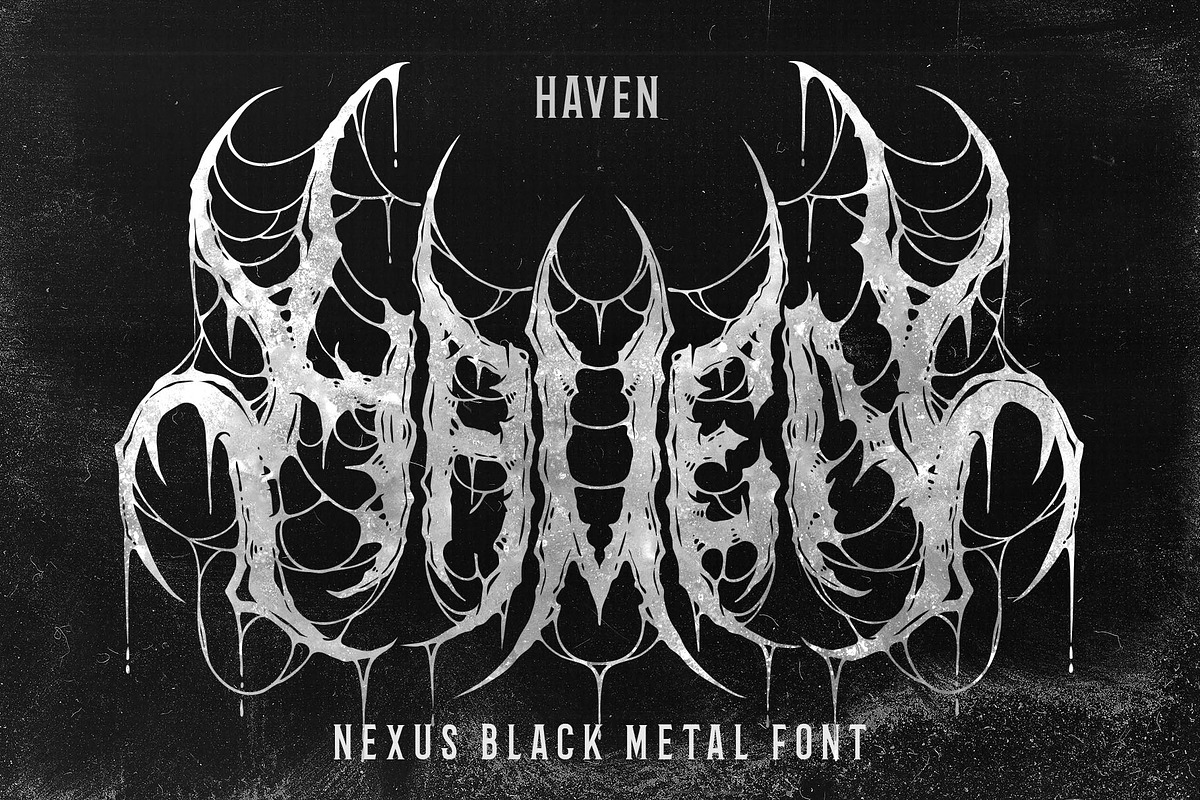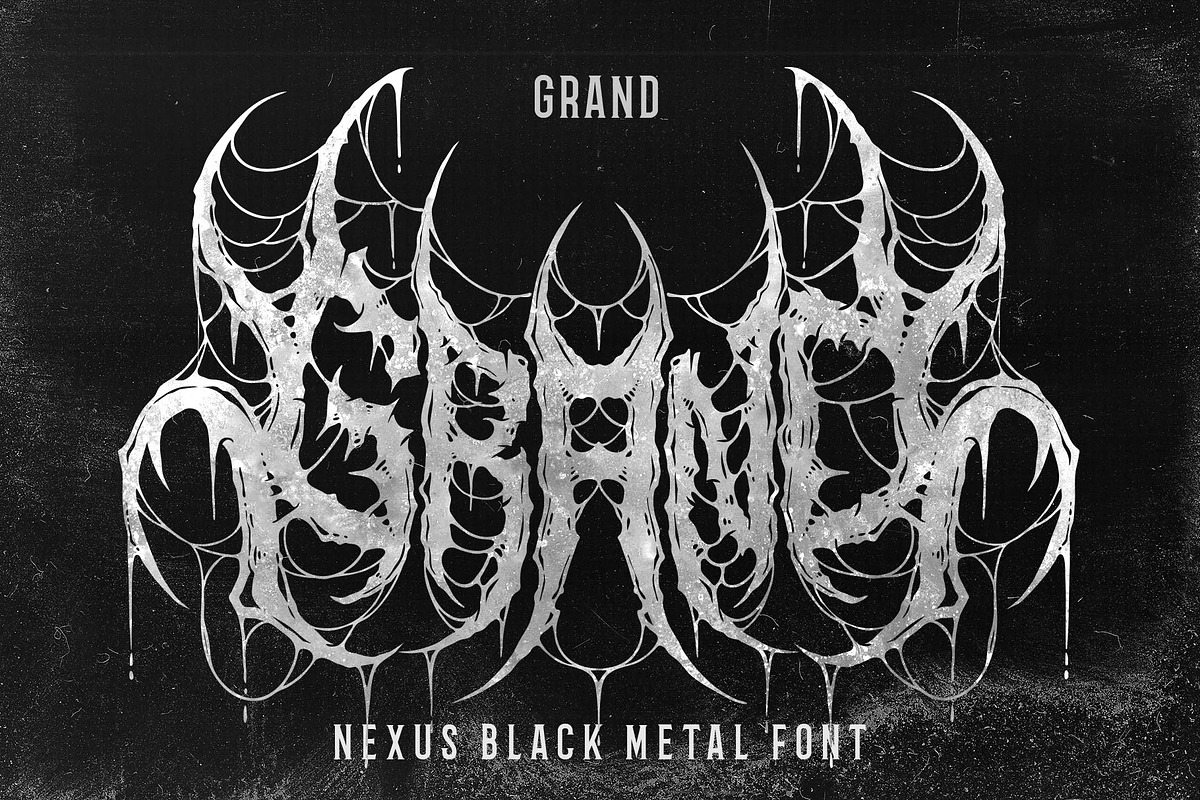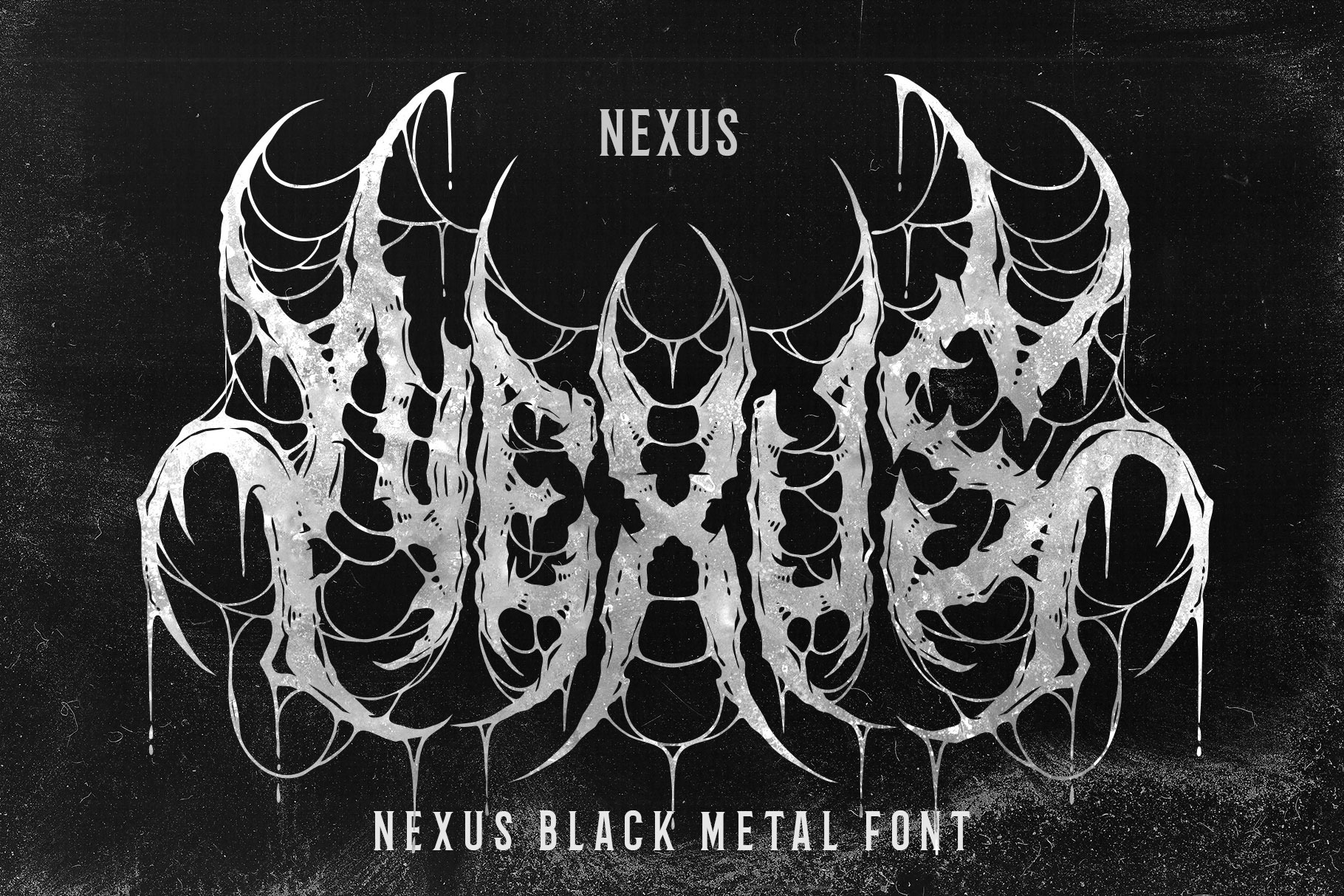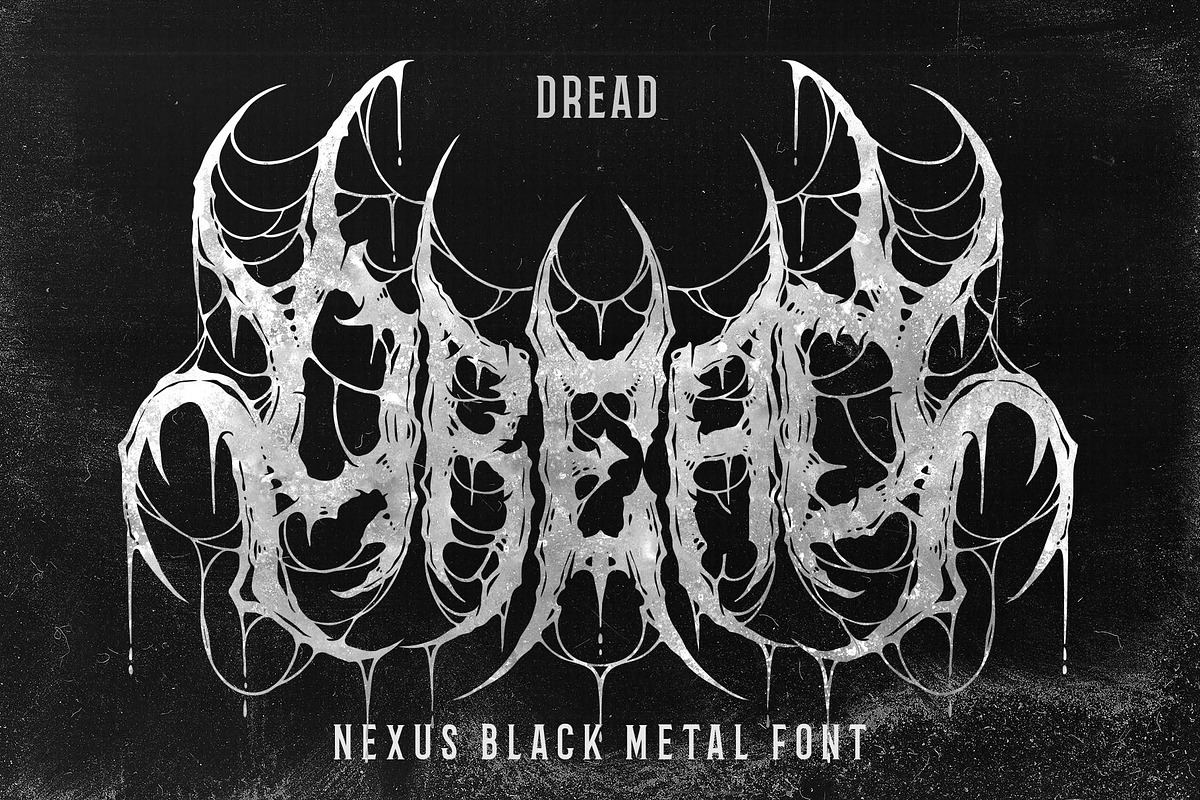
Nexus Blackmetal Font
Nexus Metal is awesome death metal font. Comes with Uppercase and lowercase characters. This font is great for any gore/metal/brutal design purposes. Nexus Metal is awesome for your logo, your band, for merchandise, for clothing, and movie title/poster